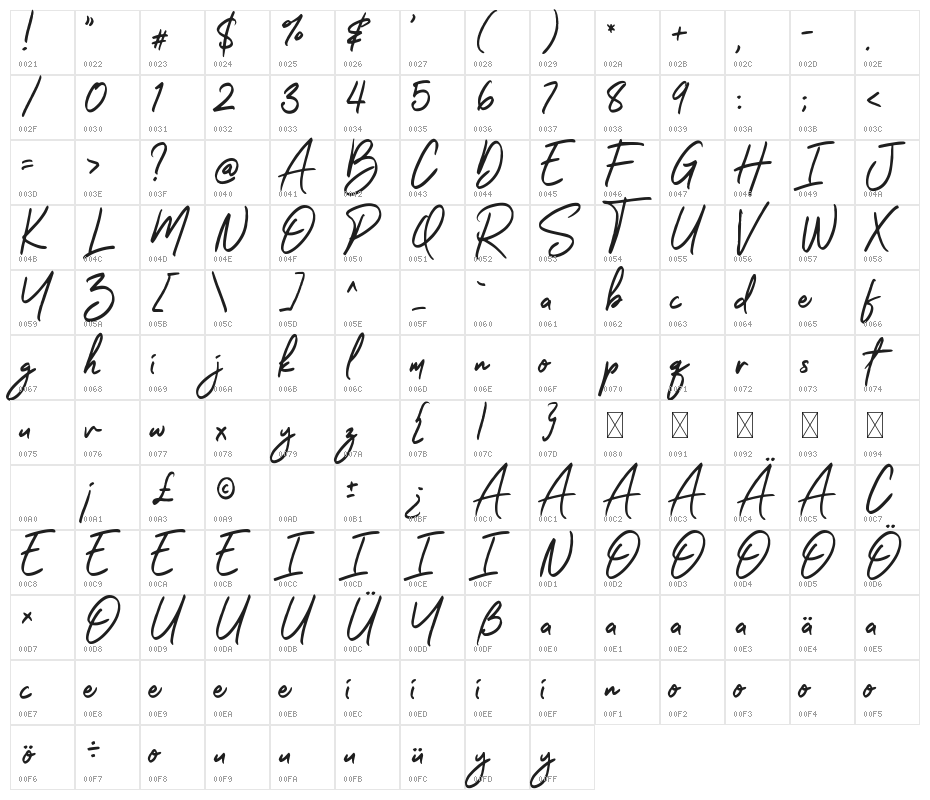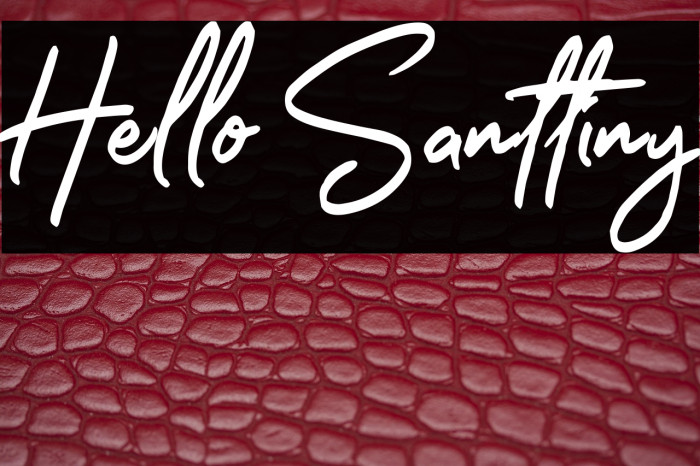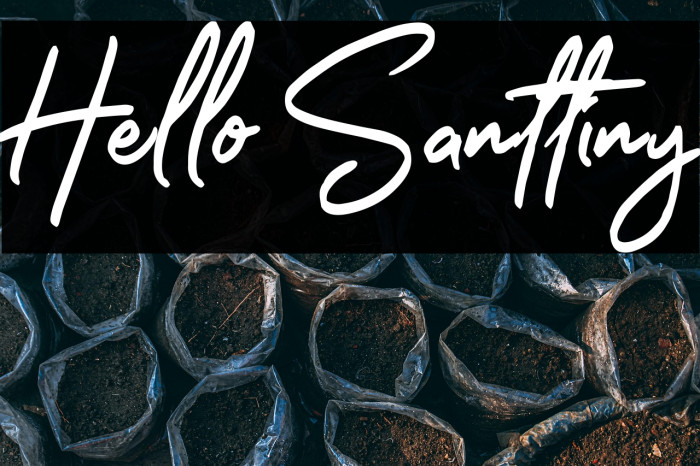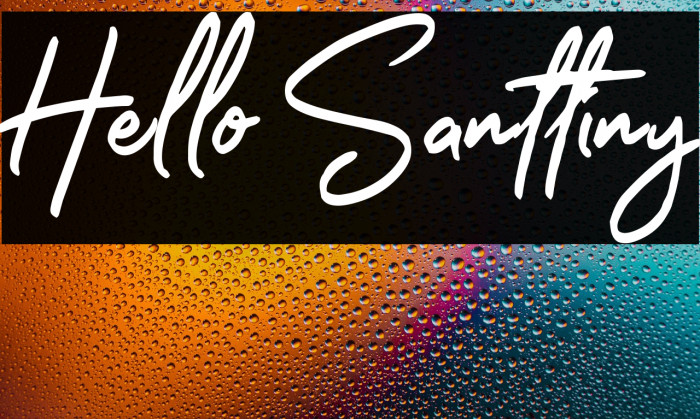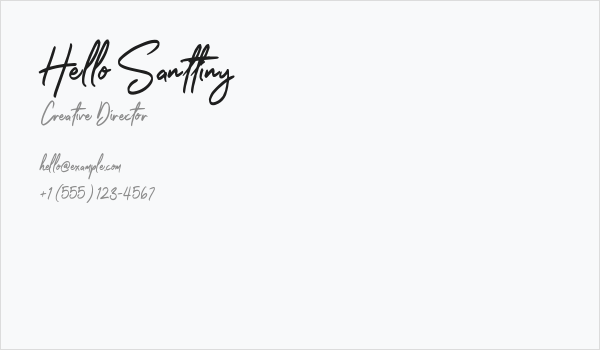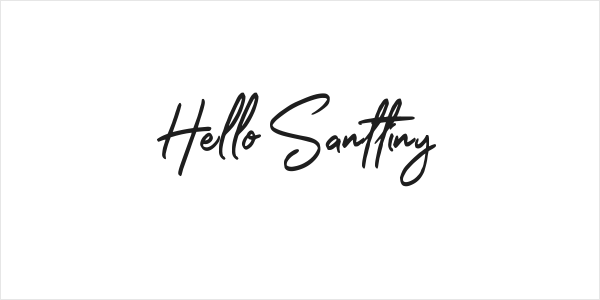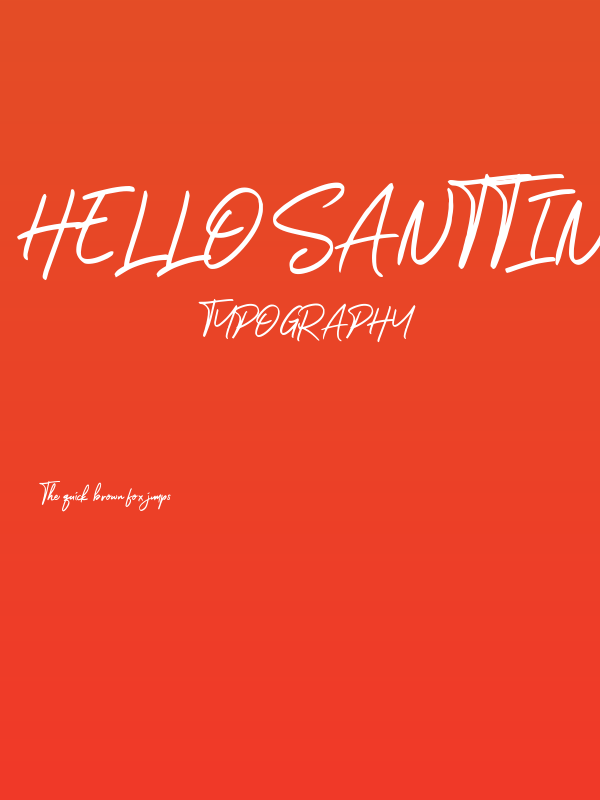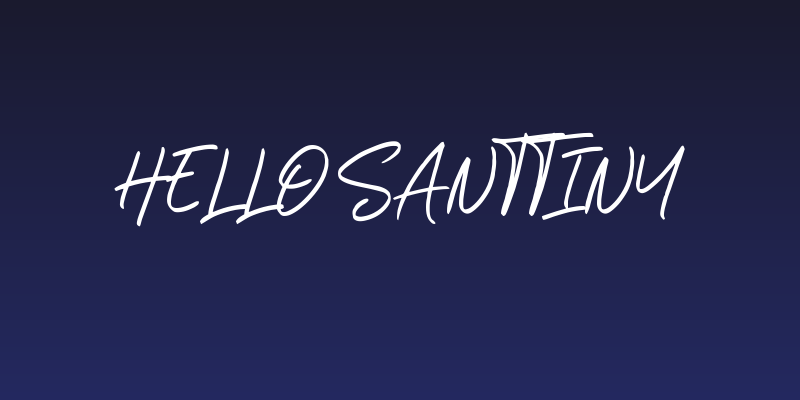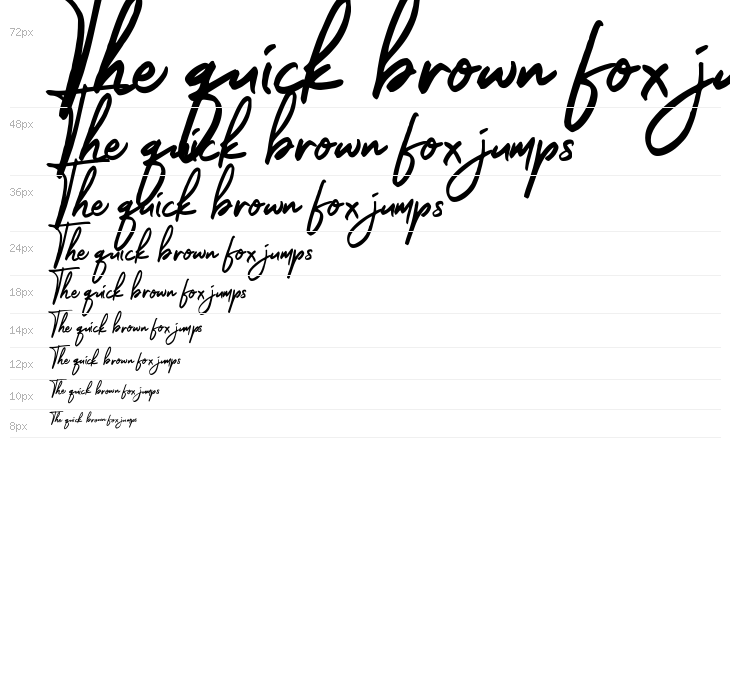
Hello Santtiny Font
Hello Santtiny Description
This font exudes a dynamic and energetic vibe, characterized by its flowing, cursive script style. The letters are crafted with a sense of motion, featuring smooth, continuous strokes that mimic natural handwriting. The uppercase letters are bold and slightly slanted, while the lowercase letters maintain a consistent fluidity, enhancing the handwritten feel. Numbers and special characters are designed to match the overall aesthetic, ensuring a cohesive look across all elements. The font's informal and artistic style makes it ideal for creative projects that require a personal touch.
| Use Case | Logos, Invitations, Artistic projects |
| Proposed Projects | Ideal for greeting cards, invitations, personal branding, and artistic projects. |